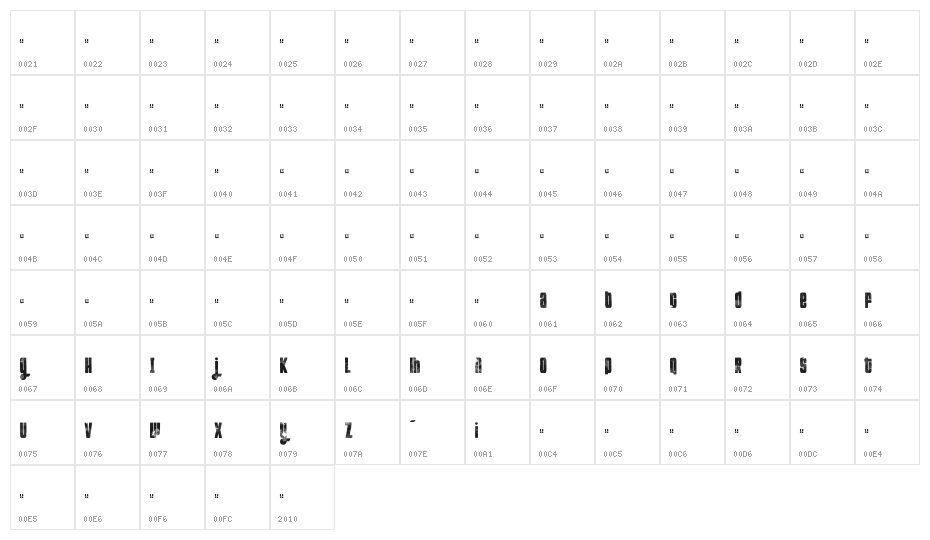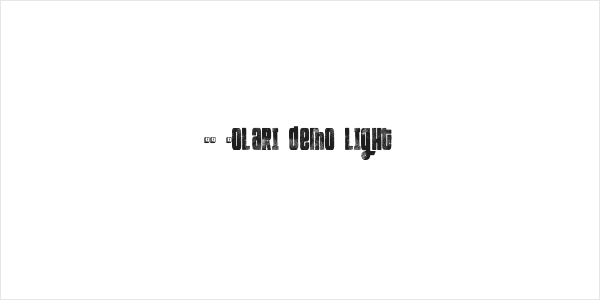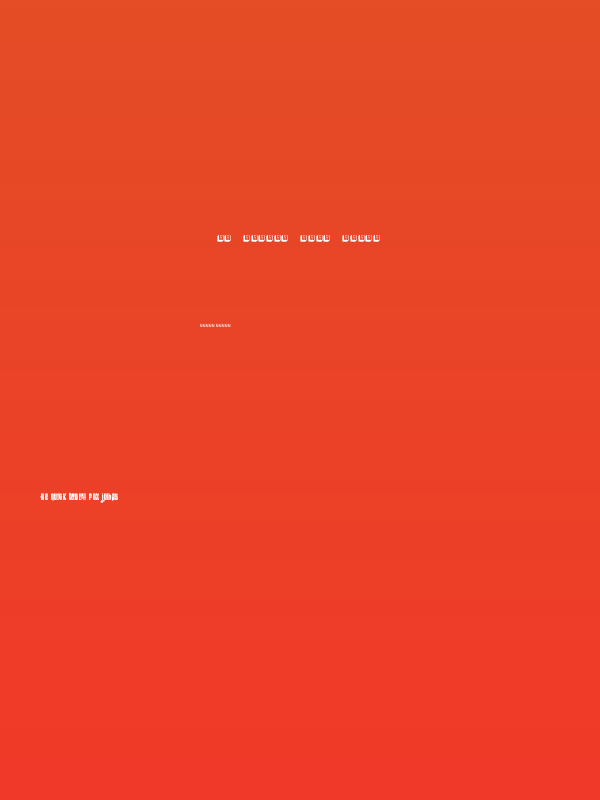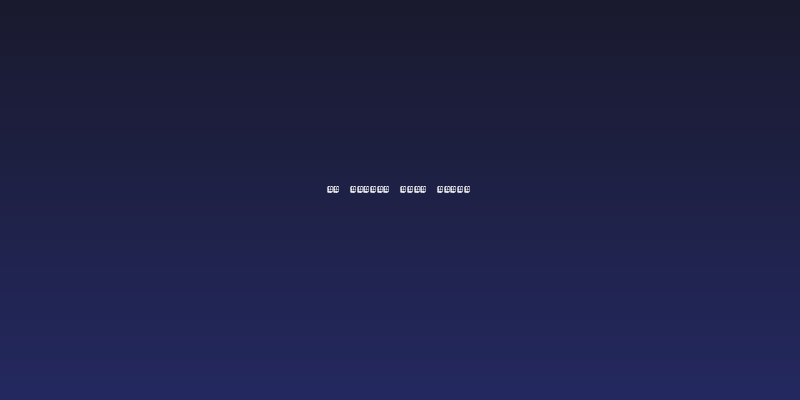
FT Kolari demo light Font
FT Kolari demo light Description
This font features a bold, distressed style with a textured appearance that gives it a rugged, vintage feel. The characters are heavily stylized with a unique pattern that resembles a worn-out or grunge effect, making it stand out in any design. The uppercase and lowercase letters maintain a consistent design, with some letters having slight variations in their distressed patterns. The numbers and special characters follow the same aesthetic, ensuring a cohesive look across all text elements. This font is perfect for projects that require a bold statement or an edgy, artistic touch.
| Proposed Projects | Ideal for posters, album covers, branding for edgy or alternative products, and any design needing a vintage or grunge aesthetic. |